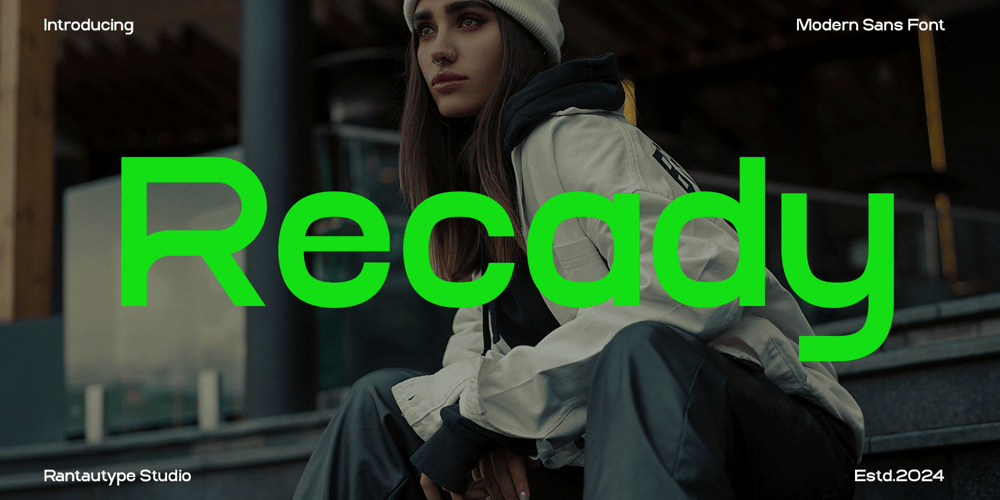
Recady Font Family was designed by Yudi Pratama Chandra and published by RantauType. Recady contains 1 styles and family package options. Recady is modern aesthetic sans serif font inspire by Geometric and Neo-grotesk visual design. Recady come with contrast and power of a display and ease of legibility. We keep this font look modern, fashionable, elegant, sporty, futuristic, minimalist and easy to use.Recady is a perfectly choice for any creative endeavor, chic, lifestyle design such as logotype, advertisements, watermark on photography, stationery, branding project, display and magazine, invitation, corporate brand, product design, label, business project and many other project with modern or industrial touch.What you have: Standart Glyphs Numberial and Functional Alternate and Ligature Works on PC & Mac Simple installations Accessible in Adobe Illustrator, Adobe Photoshop, Adobe InDesign, even work on Microsoft Word. Fonts include Multilingual Character for: Afrikaans, Albanian, Asu, Basque, Bemba, Bena, Breton, Chiga, Cornish, Dutch, English, Estonian, Filipino, Finnish, Friulian, Galician, Gusii, Indonesian, Irish, Italian, Kabuverdianu, Kalenjin, Kinyarwanda, Luo, Luxembourgish, Luyia, Machame, Makhuwa-Meetto, Makonde, Malagasy, Manx, Morisyen, North, Ndebele, Nyankole, Oromo, Portuguese, Quechua, Romansh, Rombo, Rundi, Rwa, Samburu, Sango, Sangu, Scottish, Gaelic, Sena, Shambala, Shona, Soga, Somali, Spanish, Swahili, Swedish, Swiss, German.Thank you for your purchase!Hope you enjoy with our font!